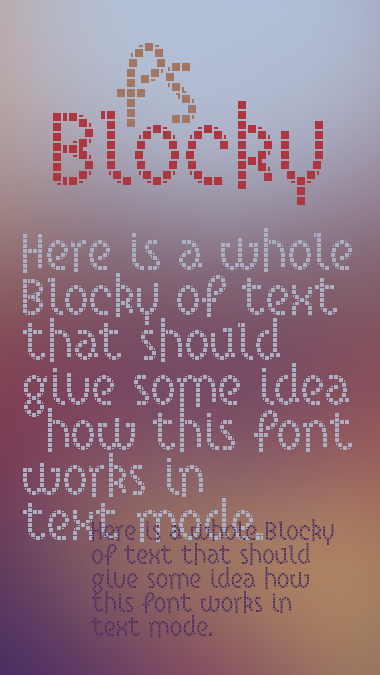
As you can see from the 'Created' date, this fs has been sitting around for a long time. The a b o (after the numbers) were the first three letters done. Then inspiration left. Today, after all this time, just a simple tweak of adding 1 extra faux-brick to the height of the letters was all the impetus needed. And when the inspiration hits....
Absolutely amazing. Innovative, smart. Looking forward to this one.
Ooh, pretty. Although the 6 might be a bit awkward... 10/10
I'm with architaraz. I like it!
I don't like this sample image. I'll change it at some point.
As my kids say, this is awesome-sauce.
No kidding :) 10/10
fresh! 10/10
Wonderful how you managed to make such a lively set of glyphs using only squares!